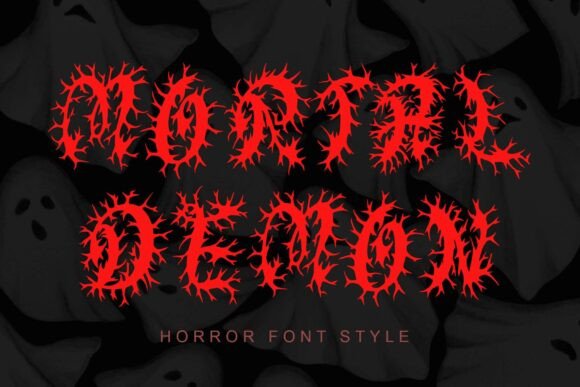
Choosing the Right Display Font: When Mortal Demon Fits Best
When it comes to selecting a display font for high-impact designs, the options are vast. Among them, Mortal Demon stands out as a particularly bold and intense choice. This font is not for the faint of heart—it’s designed to grab attention with its fierce, chaotic horror aesthetic. Its jagged, flame-like forms and razor-sharp edges create a visual presence that screams terror and intensity. For designers working in niches like metal music, horror cinema, or Halloween-themed graphics, Mortal Demon offers a unique blend of brutality and memorability.
What Makes Mortal Demon Unique?
Mortal Demon is more than just another scary-looking typeface; it’s a design statement. The font channels a demonic energy through its irregular shapes and aggressive contours. Unlike traditional horror fonts that may rely on Gothic elements or simple blood-splatter aesthetics, Mortal Demon takes inspiration from infernal imagery and chaotic motion. Each letter feels like it could leap off the page, making it ideal for projects where you want to evoke a visceral reaction.
The sharp angles and organic distortion give it a raw edge, while the overall structure remains readable enough for short phrases. This balance between readability and ferocity is rare in such extreme fonts, making Mortal Demon versatile for use in logos, headlines, and other short-form text applications. It's also worth noting that the font supports a range of stylistic variations—some versions include additional demonic flourishes or alternative character sets—which can be tailored to specific design needs.
Design Characteristics at a Glance
- Jagged, Flame-Like Forms: Evokes a sense of chaos and heat.
- Razor-Sharp Edges: Conveys aggression and intensity.
- Demonic Aesthetic: Perfect for themes involving darkness, rebellion, or the supernatural.
- High Contrast: Stands out against most backgrounds, especially dark ones.
Comparing Mortal Demon to Other Horror-Themed Fonts
While many horror display fonts exist, few deliver the same level of unrelenting energy as Mortal Demon. Fonts like Bloodline, Beastie, or Inferno Gothic often focus on either a classic Gothic look or a more stylized, cartoonish horror vibe. These fonts might work well for vintage-style posters or kid-friendly Halloween events but fall short when the goal is to create a truly menacing atmosphere.
Mortal Demon, on the other hand, leans into a more modern and aggressive interpretation of horror. It doesn’t mimic traditional typography styles; instead, it builds an identity of its own. This makes it stand apart in crowded visual spaces and ensures that any message written in it commands immediate attention.
Another category of comparison includes fantasy and sci-fi themed fonts. While these often have intricate details or magical flair, they lack the sheer intensity that Mortal Demon provides. If your project is about summoning demons or branding a heavy metal band, Mortal Demon fits better than something with a whimsical or futuristic tone.
Strengths of Using Mortal Demon
One of the biggest strengths of Mortal Demon is its ability to communicate emotion without relying on words. The font itself becomes a storytelling device, adding layers of meaning to whatever it supports. For instance, using it in a movie poster instantly tells the viewer that this isn't going to be a lighthearted film.
Here are some key advantages:
- Emotional Impact: The font evokes fear, anger, and intensity—ideal for horror, metal, and dark fantasy genres.
- Memorability: Due to its unique and striking appearance, it's more likely to stick in a viewer’s mind compared to generic fonts.
- Brand Identity: Particularly effective for creating a strong brand image in niche markets where visual impact is crucial.
- Readability in Context: Despite its chaotic look, the font remains legible in short bursts, which is essential for logos and promotional materials.
Best-Fit Use Cases for Mortal Demon
There are several scenarios where Mortal Demon shines. Here are a few examples where it might be the right choice:
Metal Band Logos
Heavy metal bands often require visuals that match their sound. With its aggressive and chaotic style, Mortal Demon is a natural fit for logos that need to reflect power, rebellion, and intensity. Bands in subgenres like death metal or black metal would benefit most from this kind of typographic presence.
Horror Movie Posters
Movie titles and taglines are critical for drawing in audiences. A font like Mortal Demon can make the title feel more dangerous and immersive, especially if the film deals with themes of possession, hell, or apocalyptic dread.
Halloween Merchandise and Event Promotions
For Halloween-specific content, whether it’s event flyers, t-shirts, or signage, Mortal Demon adds a layer of authenticity. It speaks directly to the core of what Halloween represents—fear, the unknown, and the macabre.
Video Game Titles and Branding
If you're designing a game centered around demons, dark magic, or dystopian settings, Mortal Demon can enhance the player’s first impression. It works especially well in titles, menus, or promotional art where a strong visual hook is needed.
Potential Limitations and Tradeoffs
Despite its strengths, Mortal Demon is not universally applicable. There are situations where it might not be the best choice. One major limitation is its suitability for long-form text. Because of the complexity and sharpness of each character, reading extended passages in this font would be challenging and potentially off-putting for users.
Additionally, the font’s intensity can sometimes clash with other design elements. If your artwork already features highly detailed textures or busy compositions, adding a font like Mortal Demon might overwhelm the piece rather than complement it. Designers should consider how the font interacts with colors, background images, and spacing within the layout.
Another consideration is accessibility. High contrast and sharp edges can cause issues for people with visual impairments or dyslexia. Always test the font in different environments and sizes before finalizing a design, especially if the audience includes individuals who may struggle with certain typographic styles.
Alternatives to Consider
While Mortal Demon is powerful, there are times when a different approach might yield better results. Let’s explore a few alternatives based on common use cases:
For a More Traditional Horror Look
If your design requires a classic Gothic horror vibe, consider fonts like Creepster or Averia Gruesa Libre. These fonts maintain the spooky essence but offer a slightly more refined and structured appearance.
For Fantasy or Mythical Themes
Fonts like Black Friday or Celtic Uncial provide a mystical or ancient feel, which can work well for fantasy games or medieval-inspired content. They don’t carry the same level of violence or intensity as Mortal Demon, but they do offer a rich, mythical texture.
For Maximum Readability in Extreme Styles
If you’re looking for a font that balances readability with edginess, Behold! My Blood or Dead Souls might be better choices. These fonts still deliver a strong visual punch but are easier to read at smaller sizes or in longer text blocks.
Decision Factors for Choosing Mortal Demon
Deciding whether to use Mortal Demon depends on several factors. Here are a few key questions to ask yourself:
- Do I need a font that conveys raw, unfiltered intensity?
- Is my audience familiar with or drawn to horror, metal, or dark fantasy themes?
- Will the text be used in a short-form context (like a logo or headline)?
- Am I okay with a font that may not be suitable for all age groups or visual contexts?
- Can I ensure sufficient contrast and clarity when pairing it with other design elements?
Answering “yes” to most of these suggests that Mortal Demon could be a good fit. However, if your project requires subtlety, widespread appeal, or long-form text, it might be wise to explore milder alternatives.
Realistic Examples of Mortal Demon in Action
To understand where Mortal Demon excels, let’s look at some real-world applications:
- Example 1: A death metal band named "Infernal Echo" uses Mortal Demon for their album cover. The font’s aggressive nature matches the music perfectly and creates a lasting visual association with the band’s name.
- Example 2: A local haunted house attraction uses Mortal Demon in their promotional banner. The font enhances the eerie atmosphere and draws in thrill-seekers looking for an authentic experience.
- Example 3: A video game developer employs Mortal Demon in the title screen of their upcoming release, "Chains of the Damned." The font helps set the tone immediately, reinforcing the game’s narrative and setting expectations for players.
In each case, the font contributes significantly to the overall mood and messaging of the project.
Final Thoughts on Fit and Application
Mortal Demon is a font that demands space and respect. It’s not subtle, nor is it meant to be. When used correctly, it can elevate a design from ordinary to unforgettable. However, it requires careful handling to avoid overpowering the rest of the composition or alienating certain viewers.
Ultimately, the decision to use Mortal Demon hinges on the message you want to convey and the context in which it will appear. If your project thrives on chaos, darkness, and raw emotion, this font is likely to serve you well. But for broader audiences or more nuanced design goals, exploring alternatives might lead to a better outcome.
Before committing to Mortal Demon, take the time to test it in various scenarios and ensure it aligns with your brand voice and visual strategy. With thoughtful application, it can become a powerful tool in your creative arsenal.